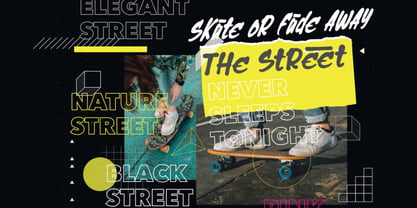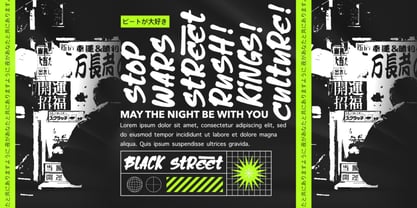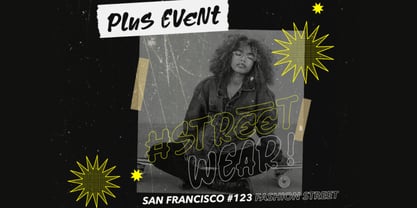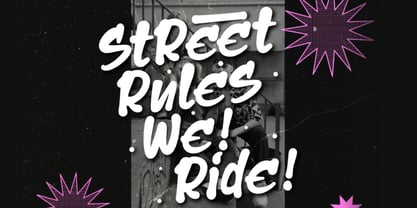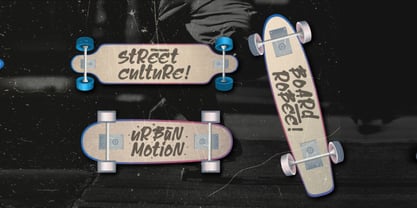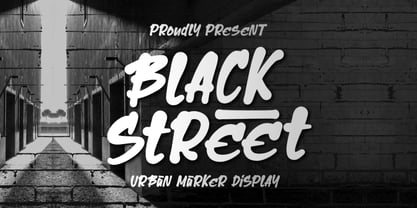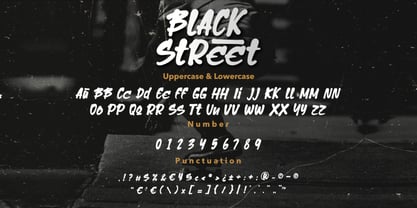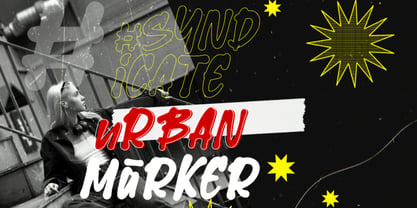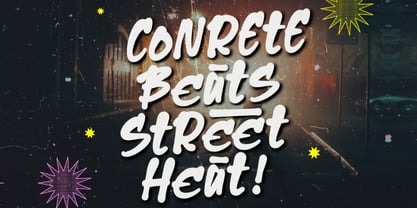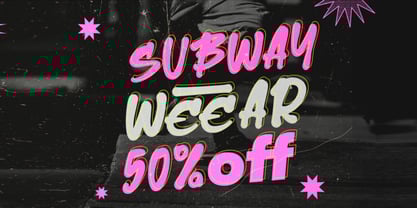
Black Street Urban
The Black Street Urban Font Family was designed by Bayu Aji Fais Mursid and published by Bayuktx. Black Street Urban contains 1 styles. More about this family
Black Street Urban Marker Font captures the raw, expressive energy of street culture and graffiti art. Designed with bold strokes, rough edges, and authentic marker textures, this typeface channels the true essence of urban rebellion and freestyle creativity. Every letter carries the rhythm of the city — spontaneous, loud, and full of motion. Perfect for branding, music covers, skate graphics, and posters that demand attention and attitude. Black Street stands out with its hand-drawn imperfection, making each word feel alive and real. This font embodies the fearless voice of the streets — rugged yet stylish, raw yet intentional. Whether you’re designing for merchandise, murals, or digital media, Black Street gives your work a punch of authenticity and underground spirit. Key Features : * Uppercase & Lowercase * Numerals & Punctuation * Multilingual Support * PUA Encoded & OpenType Features Suitable For : * Fashion & Urban Branding * Skateboard & Graffiti Designs * Music & Hip-Hop Covers * Posters & Merchandise * Youth Culture & Lifestyle Projects With Black Street Urban Marker Font, your designs will pulse with street energy — bold, untamed, and unapologetically real.